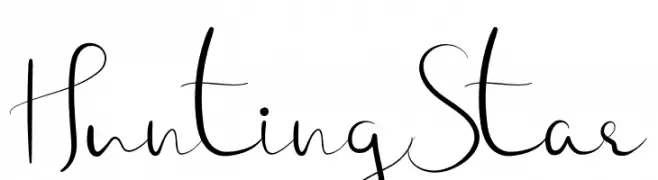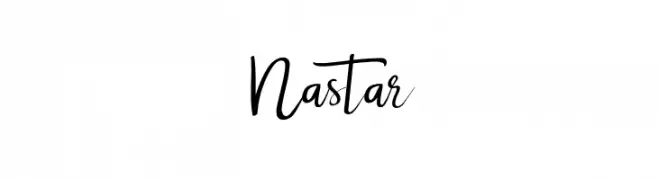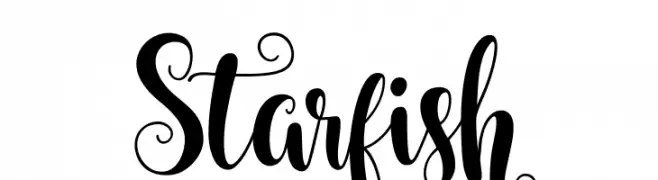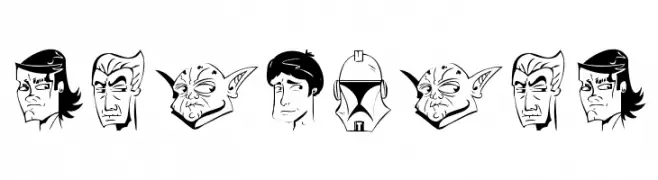
A dynamic, twisted font with sharp, angular edges and a modern feel.
Whimsical, illustrated character font with a sci-fi theme.
A playful, rounded font with smooth curves and a friendly appearance.
A playful and whimsical script font with interconnected letters and a lively appearance.
A flowing, cursive script font with elegant loops and swashes.
An elegant script font with flowing, intricate letterforms and high contrast.
An elegant script font with ornate swashes and high contrast.
A flowing, cursive font with elegant loops and swashes, perfect for creative projects.
A futuristic, bold italic font with sharp, angular lines.
A bold, geometric, and futuristic condensed font with angular shapes.